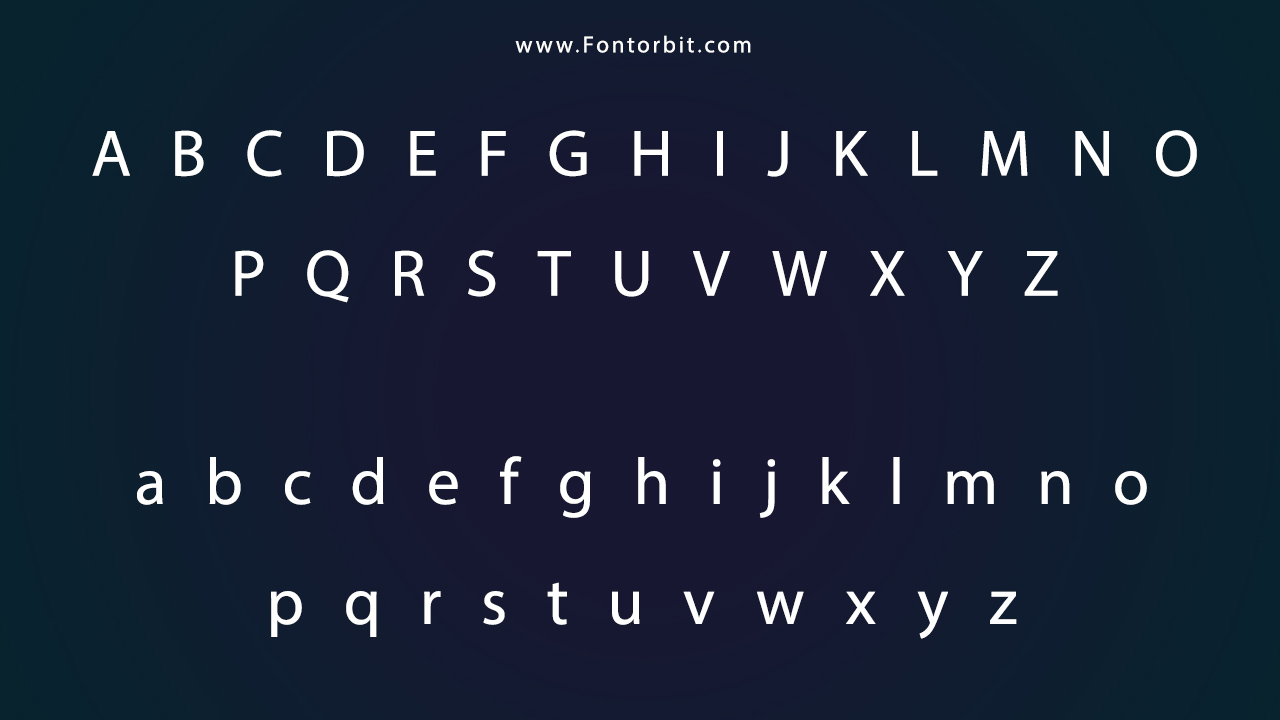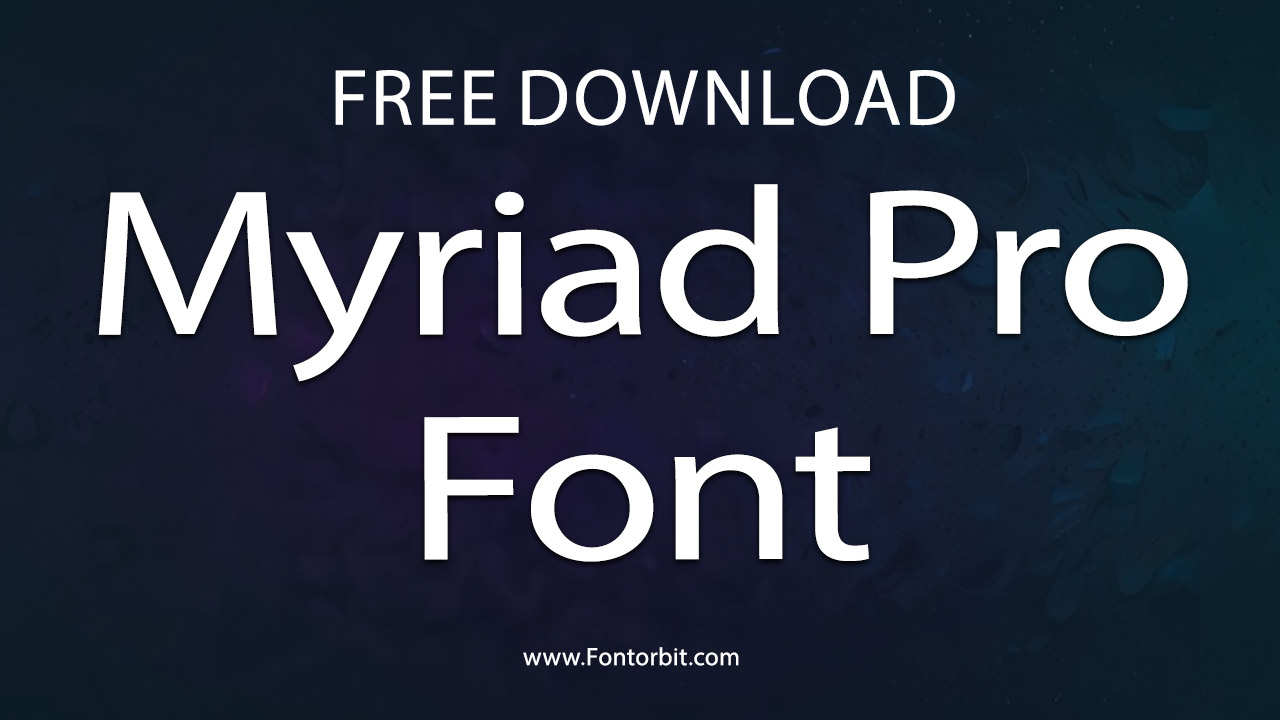
Myriad Pro is a widely recognized and versatile typeface designed by Robert Slimbach and Carol Twombly. It was first published by Adobe in 1992. As part of the Myriad font family, it’s known for its clean, humanist sans-serif style, ideal for various design purposes.
Myriad Pro Font Information
The Myriad Pro family is versatile and expansive, offering a range of weights and styles suitable for both digital and print media. This typeface is particularly well-suited for branding, signage, and corporate use.
- Myriad Pro Regular
- Myriad Pro Bold
- Myriad Pro Light
- Myriad Pro Condensed
- Myriad Pro Bold Condensed
- Myriad Pro Condensed Italie
- Myriad Pro Bold Condensed Italie
- Myriad Pro Bold Italie
- Myriad Pro Semi Bold
- Myriad Pro Semi Bold Italie
Notable Uses of Myriad Pro:
Myriad Pro has been used in various branding and design applications due to its legibility and modern aesthetic. Some of the notable uses include:
- Apple’s corporate branding from 2002-2017.
- University and academic institution branding.
- Corporate websites and marketing materials.
- Advertisements for global companies like Walmart.
Myriad Pro is perfect for:
- Corporate branding and logos
- Web design and UI/UX projects
- Printed marketing materials, brochures, and flyers
- Signage and large-scale displays
Myriad Pro is a humanist sans-serif typeface with versatility, readability, and a contemporary style, making it an ideal choice for professional use. Its family includes various weights and styles, providing designers with multiple options. Whether looking for a font for corporate branding or web design, Myriad Pro remains a top contender.
2.What Are The Best Alternatives To Myriad Pro?
Open Sans, Roboto, Lato, Liberation Sans, and Noto Sans are excellent alternatives.
3.Why Is Myriad Pro So Popular?
Myriad Pro is popular for its clean design, readability, and versatility.
4.Can I Use Myriad Pro For Web Design?
Yes, Myriad Pro is excellent for print and digital projects, including web design.
5.Is Myriad Pro Good For Corporate Branding?
Yes, it has been used by companies like Apple and many academic institutions.
6.Does Myriad Pro Have A Condensed Version?
Yes, Myriad Pro includes condensed versions like Myriad Pro Condensed and UltraCondensed.
7.Are There Similar Google Fonts To Myriad Pro?
Yes, Open Sans and Roboto are similar to Google Fonts in Myriad Pro.